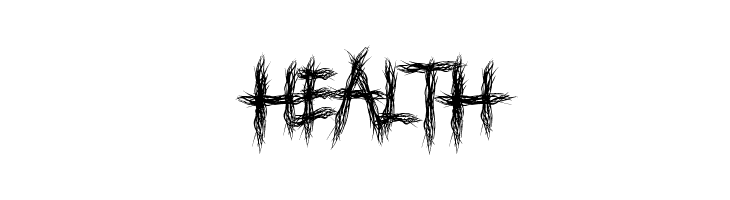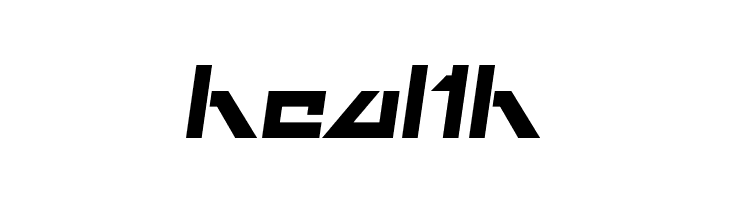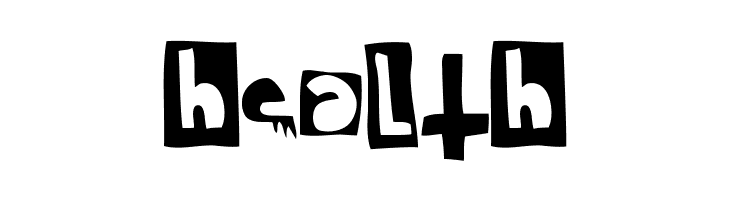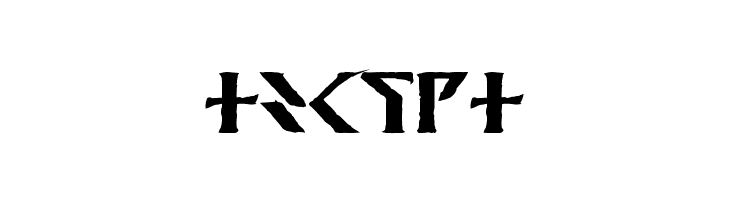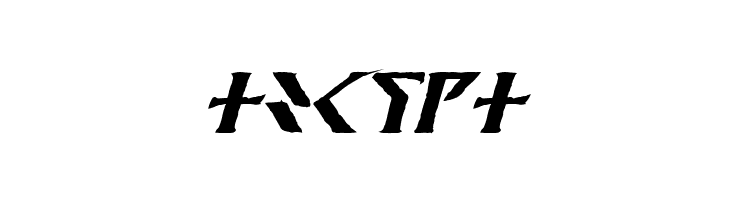
• Dan's Disney
A whimsical, playful font with bold curves and enchanting flourishes.
• DangerWaffles
A playful, textured font with a hand-drawn, sketch-like appearance.
• DaPunk
A bold, eclectic font with a rebellious, punk-inspired aesthetic.
• DaPunk
A bold, playful font with irregular, edgy characters and a dynamic, energetic feel.
• Dark Future Italic
• Dark Misery
A bold, playful handwritten font with a casual and friendly style.
• Darkside
A chaotic, textured font with jagged strokes, ideal for eerie or mysterious themes.
• Davek
A bold, angular font with a runic, tribal aesthetic and distressed texture.
• Davek Bold
A bold, angular font with a medieval, runic style.
• Davek Bold Italic
A bold, italicized font with sharp, angular edges and a futuristic look.